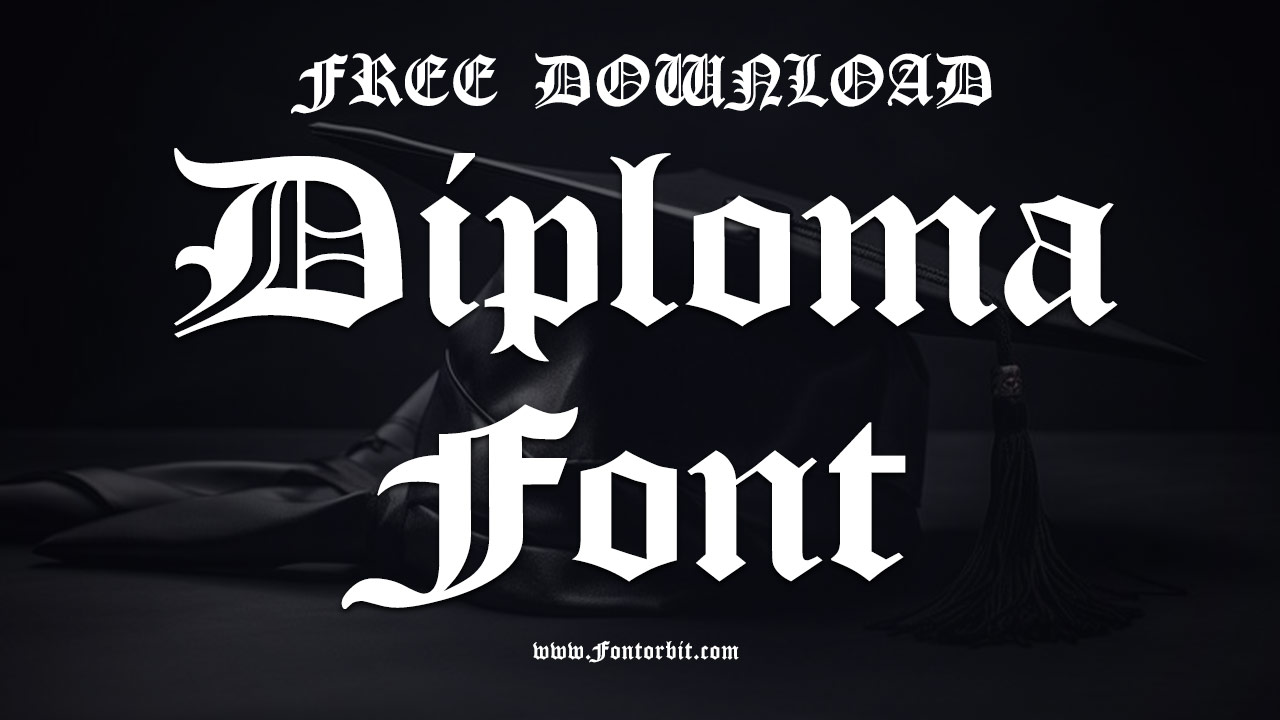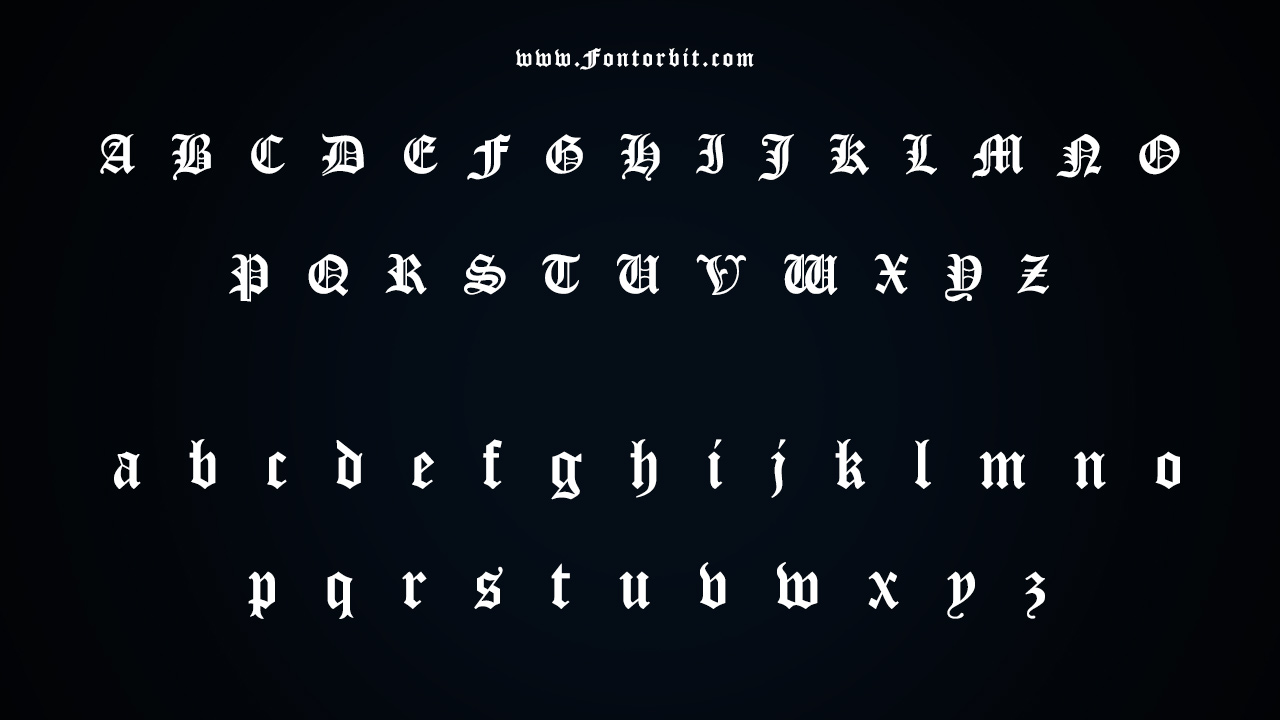
The Diploma font is a classic typeface known for its elegant, formal style, making it ideal for academic certificates and prestigious awards. It belongs to the Diploma font family, recognized for its sophistication and readability.
Diploma Font Family Includes
The Diploma font family encompasses a variety of styles that cater to different design needs. Here’s a brief overview of the family:
Diploma Regular
Notable Uses of Diploma Font
The Diploma font is frequently used in:
- Academic Diplomas
- Awards and Honors:
- Event Invitations
Diploma font is best suited for:
- Educational Certificates
- Official Documents
The Diploma font remains a go-to choice for formal and prestigious documents. Its clean, classic design conveys a sense of importance and professionalism, making it a valuable asset in any designer’s toolkit.
5.What Makes The Diploma Font Unique?
Its elegant and formal style makes it stand out for official documents and awards.